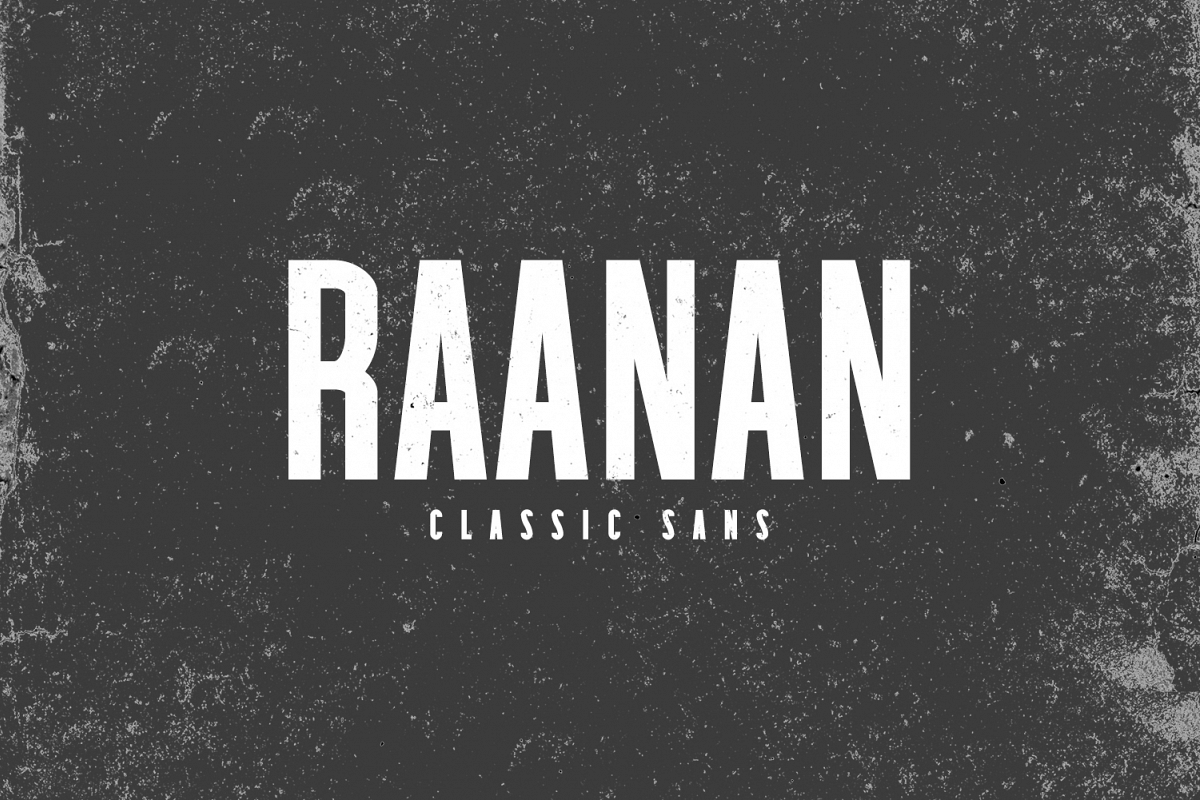
Raanan Classic Sans Serif Font Family
Raanan is a classic sans font family that includes Regular, Light, Round & Bold versions. It contains all basic glyphs with multilingual characters support. Raanan will be perfect for headlines, lettering, posters, branding, packaging, presentations, logo, quotes, titles, magazines headings, web layouts, advertising, invitations, packaging design, books, and nearly any creative design.
Included Features:
• Font Weight: Regular, Light, Round and Bold
Raanan Font Features:
• Uppercase Letters
• Lowercase Letters
• Non English Characters ( Latin Supplement + Latin Extended A)